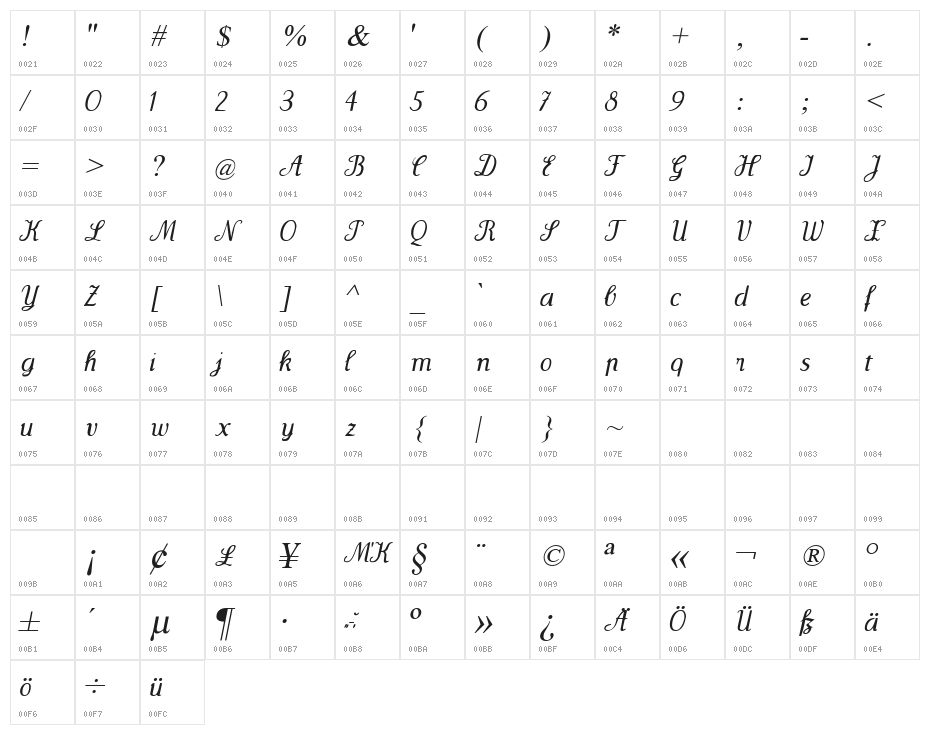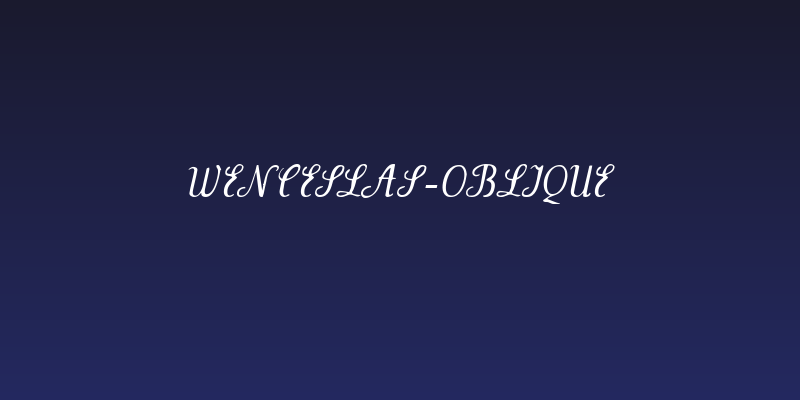
Wenceslas-Oblique Font
Wenceslas-Oblique Description
This elegant script font features a flowing, cursive style with a slight oblique slant, giving it a sophisticated and dynamic appearance. The characters are well-balanced with smooth curves and delicate strokes, creating a sense of fluidity and grace. The uppercase letters are ornate yet readable, while the lowercase letters maintain a consistent rhythm. Numbers and special characters are designed to complement the overall aesthetic, making it suitable for formal and decorative applications.
Overall StyleElegant
Use CaseLogos, Invitations, Decorative text
Proposed ProjectsIdeal for wedding invitations, elegant branding, greeting cards, and formal event programs.